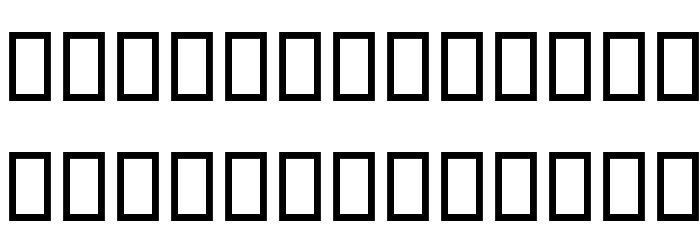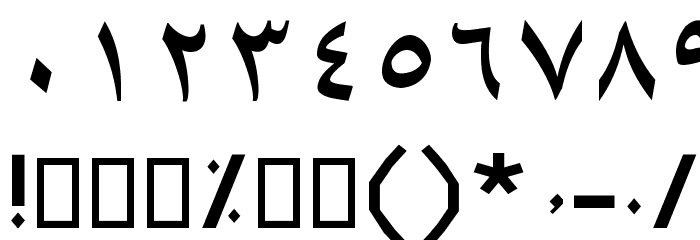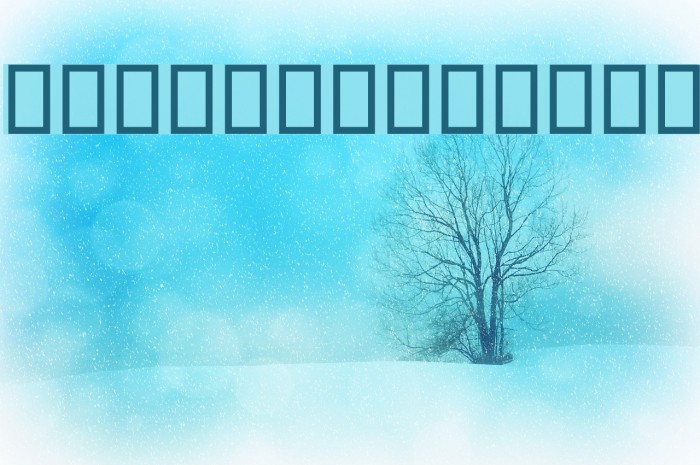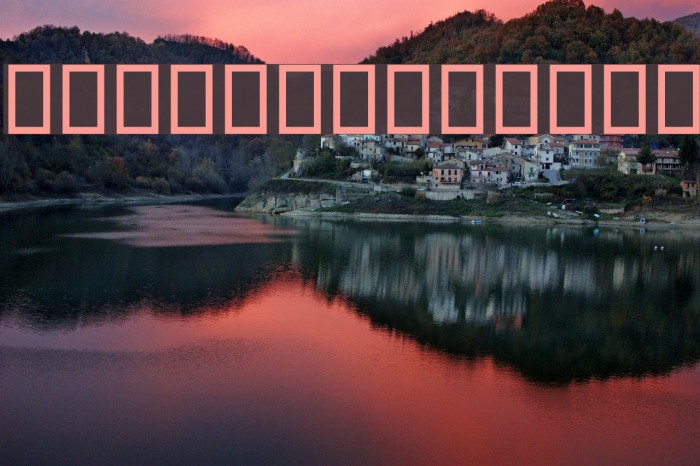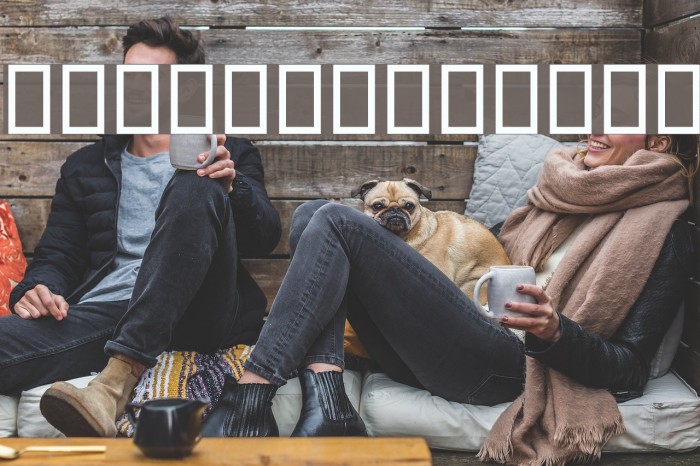
Laqhab Light Font
This font features a unique and artistic design with a calligraphic influence, characterized by fluid, flowing strokes that give it a dynamic and elegant appearance. The characters are crafted with a distinct flair, incorporating both sharp angles and smooth curves, which create a sense of movement and grace. The numerals and special characters maintain this stylistic approach, ensuring consistency across the entire typeface. This font's artistic nature makes it suitable for creative and expressive projects, where a touch of sophistication and individuality is desired.
A calligraphic and artistic font with fluid strokes and dynamic elegance.
- Proposed Projects: Ideal for wedding invitations, artistic posters, branding for luxury products, and creative editorial design.
- Use Case: Logos, Invitations, Artistic projects